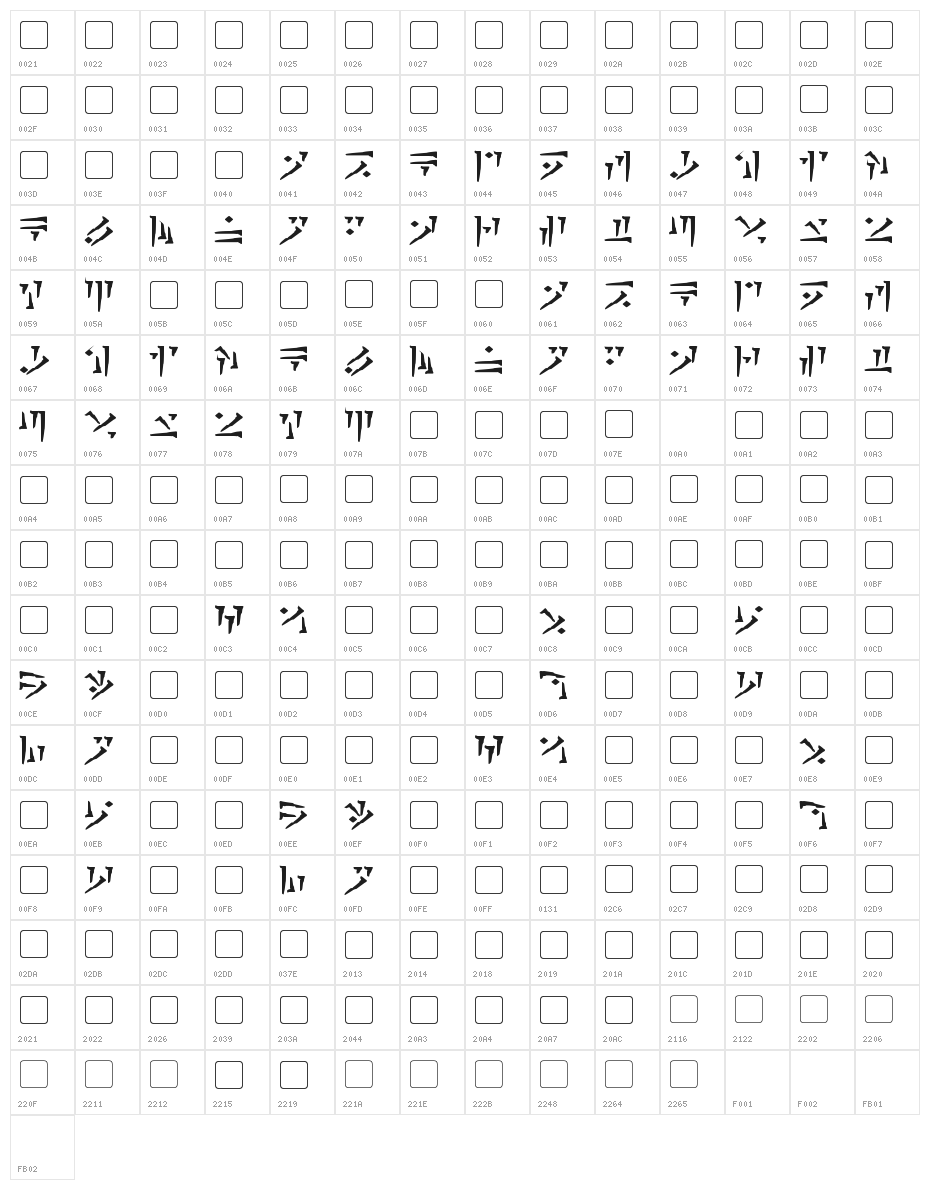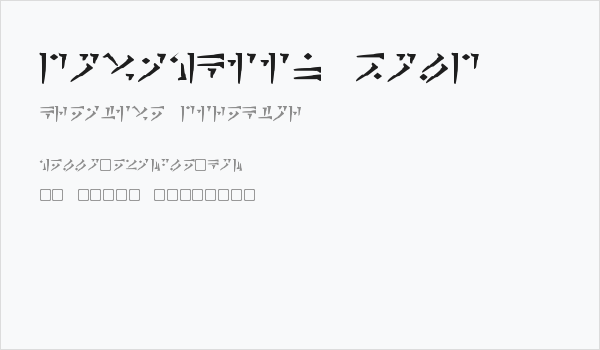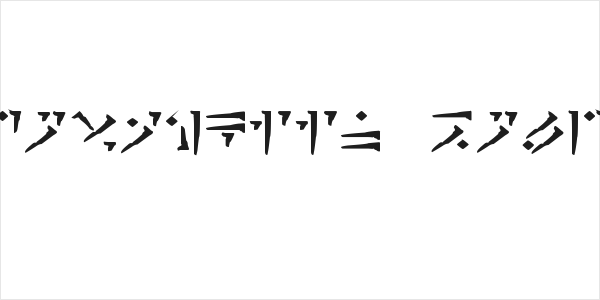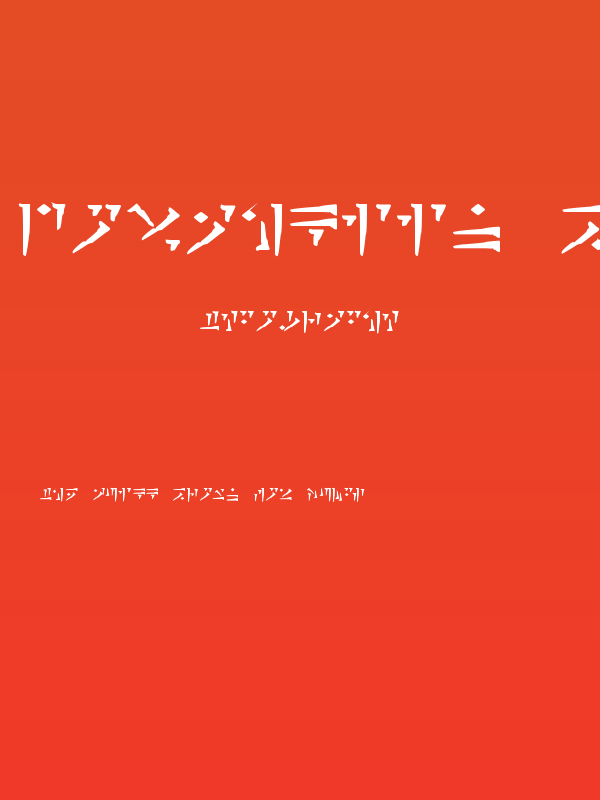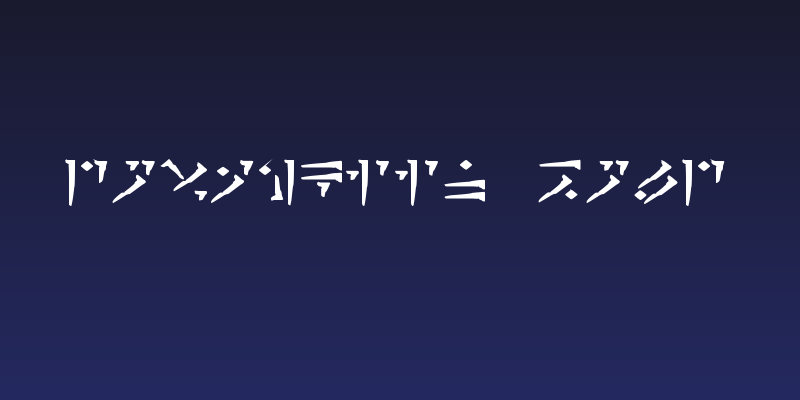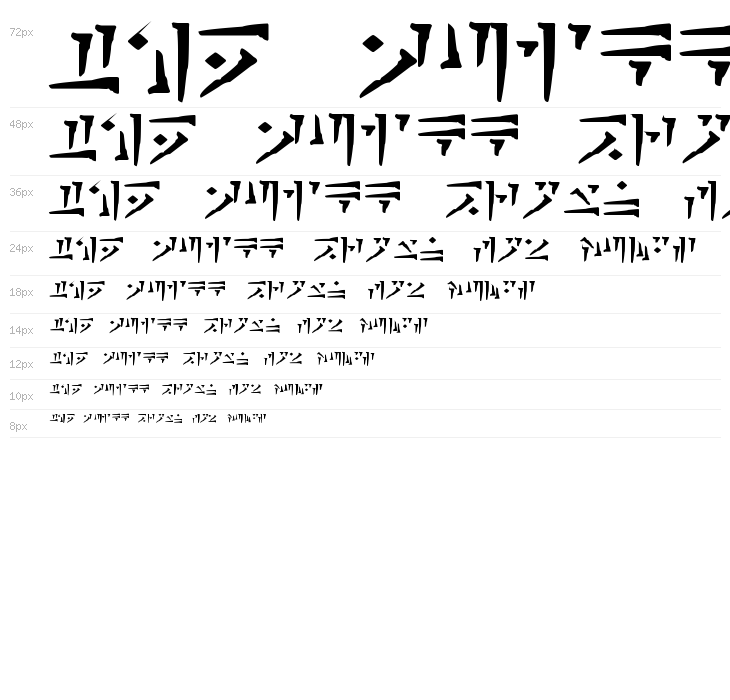
Dovahkiin Bold Font
This font is a decorative script that draws inspiration from ancient runic alphabets, featuring sharp, angular lines and a bold presence. The characters are uniquely stylized, resembling a fantasy or mythical script, which gives it a mysterious and adventurous feel. The strokes are thick and consistent, providing a strong visual impact. The design is intricate, with each letter having a distinct, handcrafted appearance that evokes a sense of ancient lore and epic tales. Its boldness and decorative nature make it stand out, perfect for projects that require a touch of fantasy or historical depth.
| Proposed Projects | Ideal for fantasy-themed projects, video game titles, book covers, movie posters, and themed event invitations. |